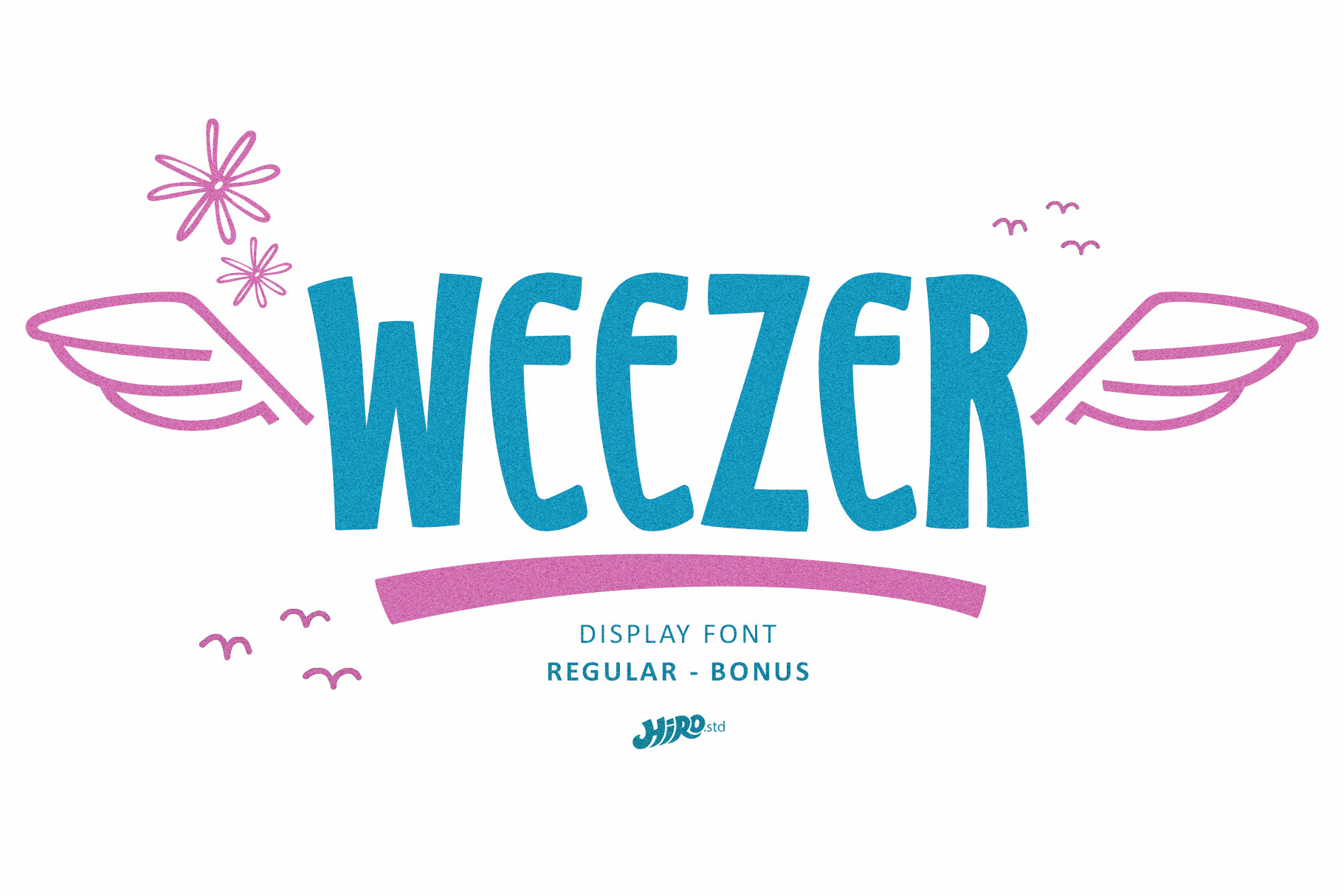
Weezer - Display Font
Weezer is a display font.
This font describes about fun, bouncy, humanism, modern, simple, clean and easy to use.
- Alternates Letters
- Bonus Dingbats Letters
USE Weezer works great in movie title, game title, headline, poster, magazine, packaging, apparel, and any projects that need bold clean handwriting taste.